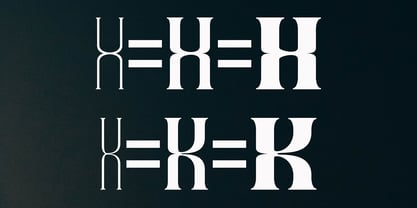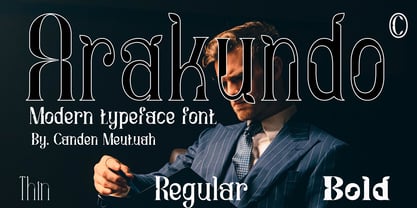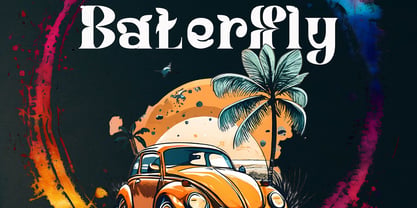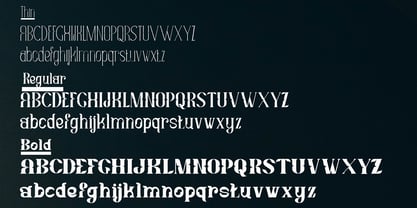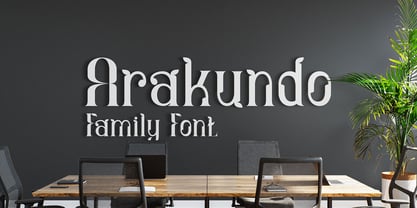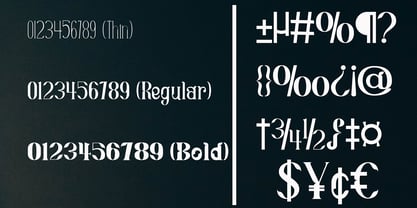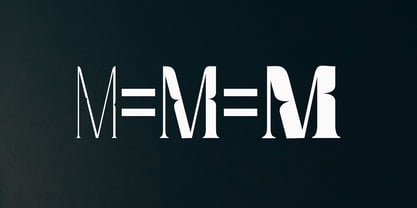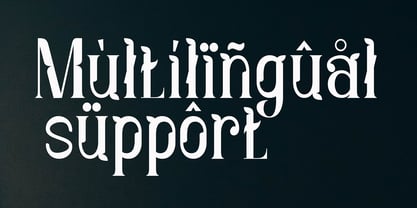
Arakundo
by Canden Meutuah
The Arakundo Font Family was designed by Canden Meutuah and published by Canden Meutuah. Arakundo contains 3 styles and family package options. More about this family
Arkundo is a stylish, bold, and beautiful new display font that offers beautiful typographic harmony for a variety of design projects, including logos and branding, social media posts, advertisements, greeting cards, stationery, invitations, t-shirts, apparel, packaging, posters, and many other product designs. It can be used in multiple languages. You won't be disappointed with the results.